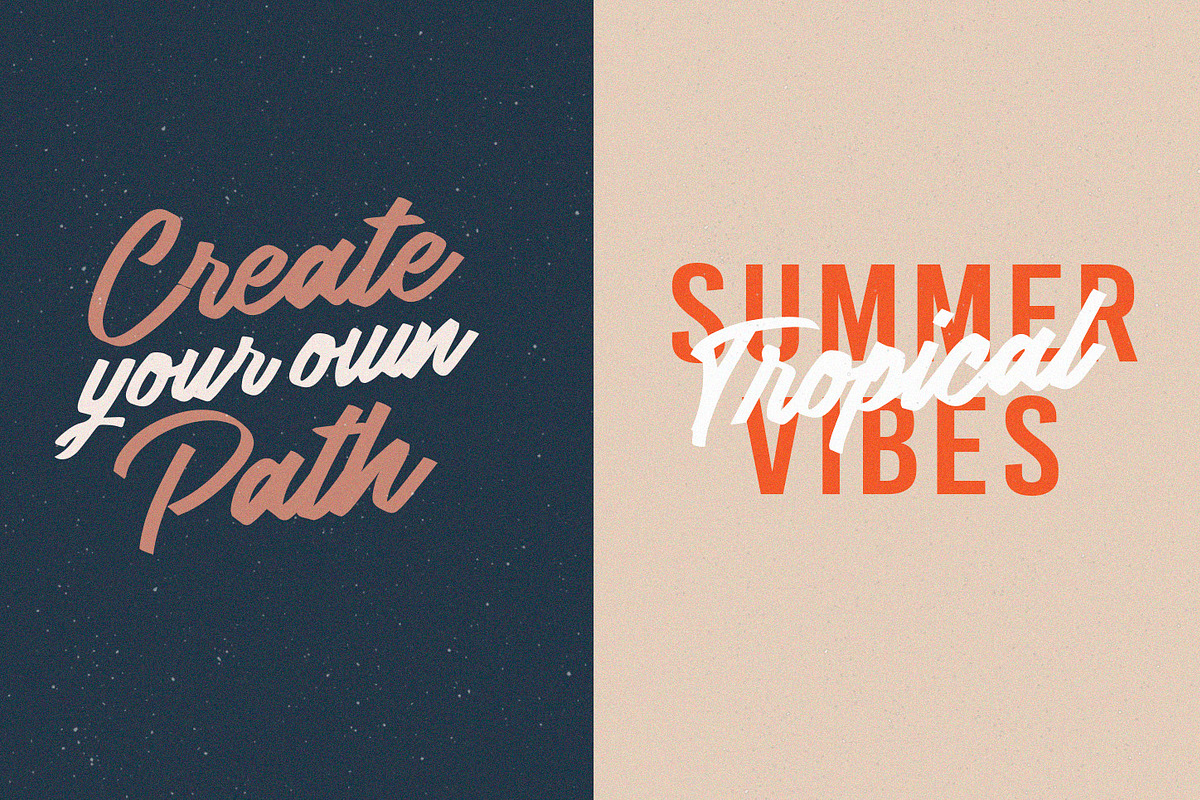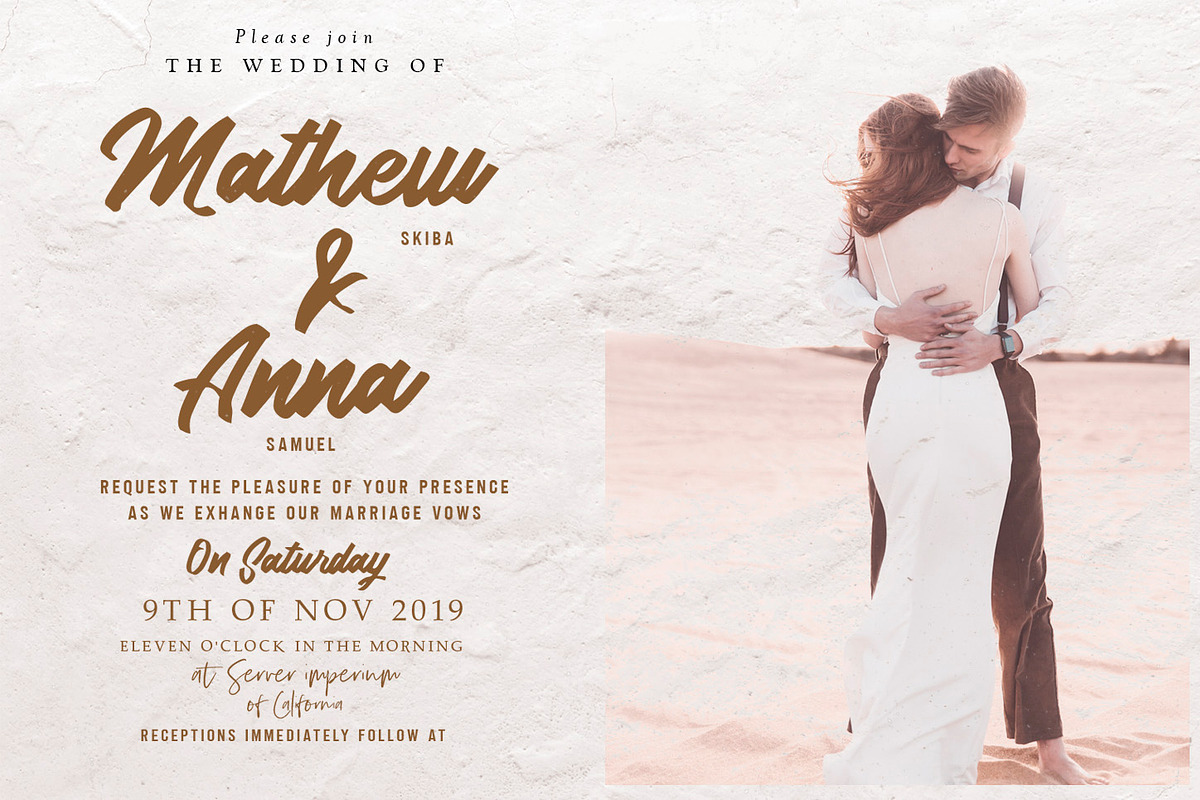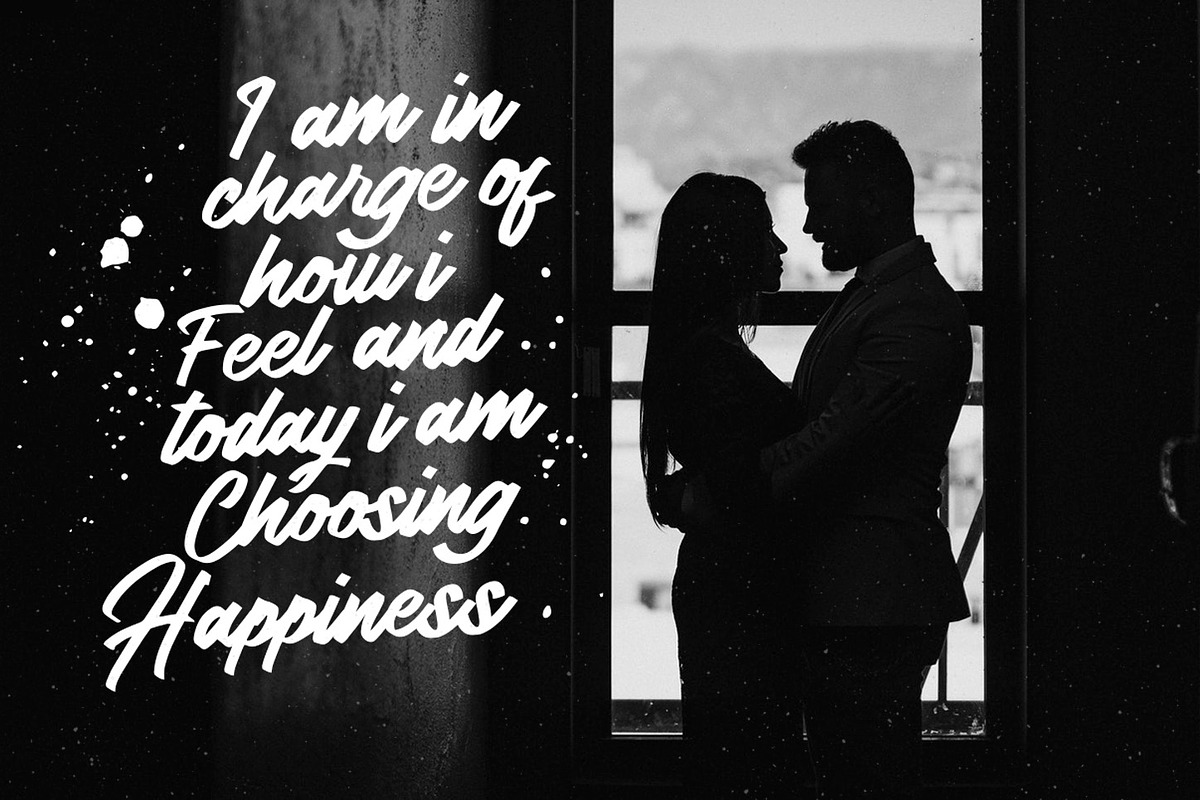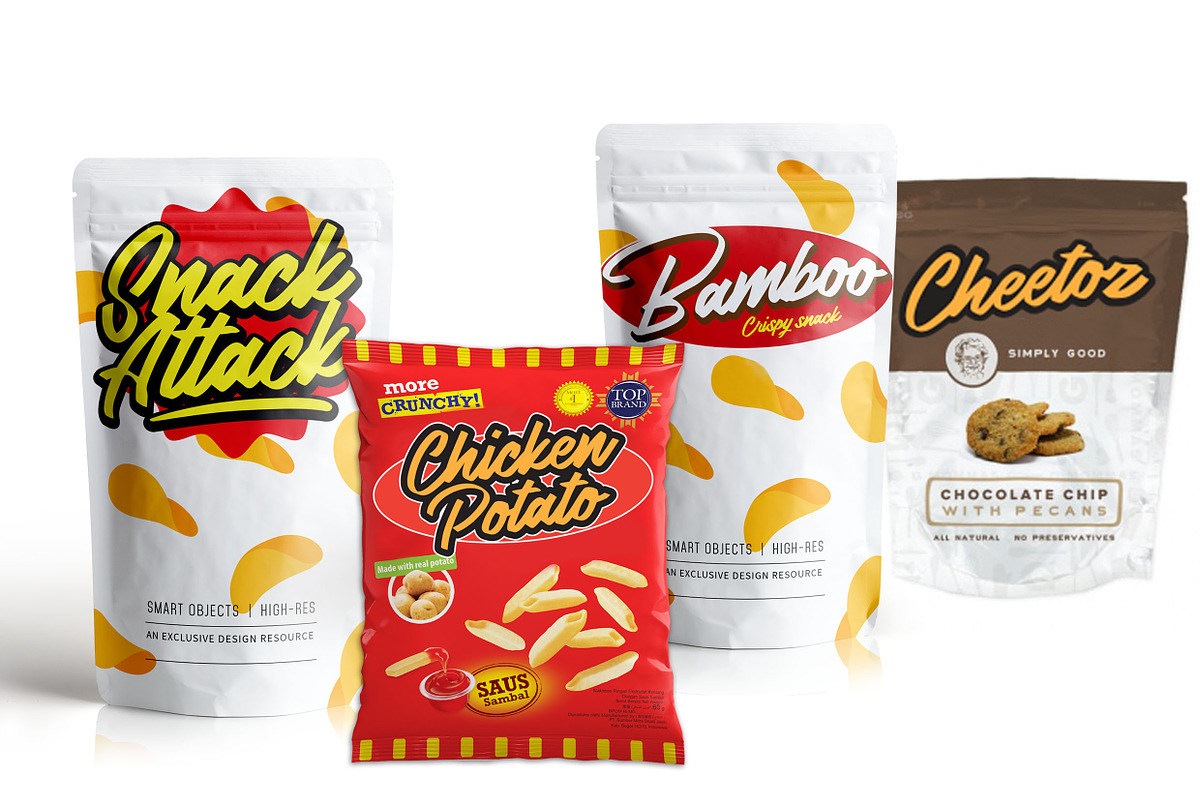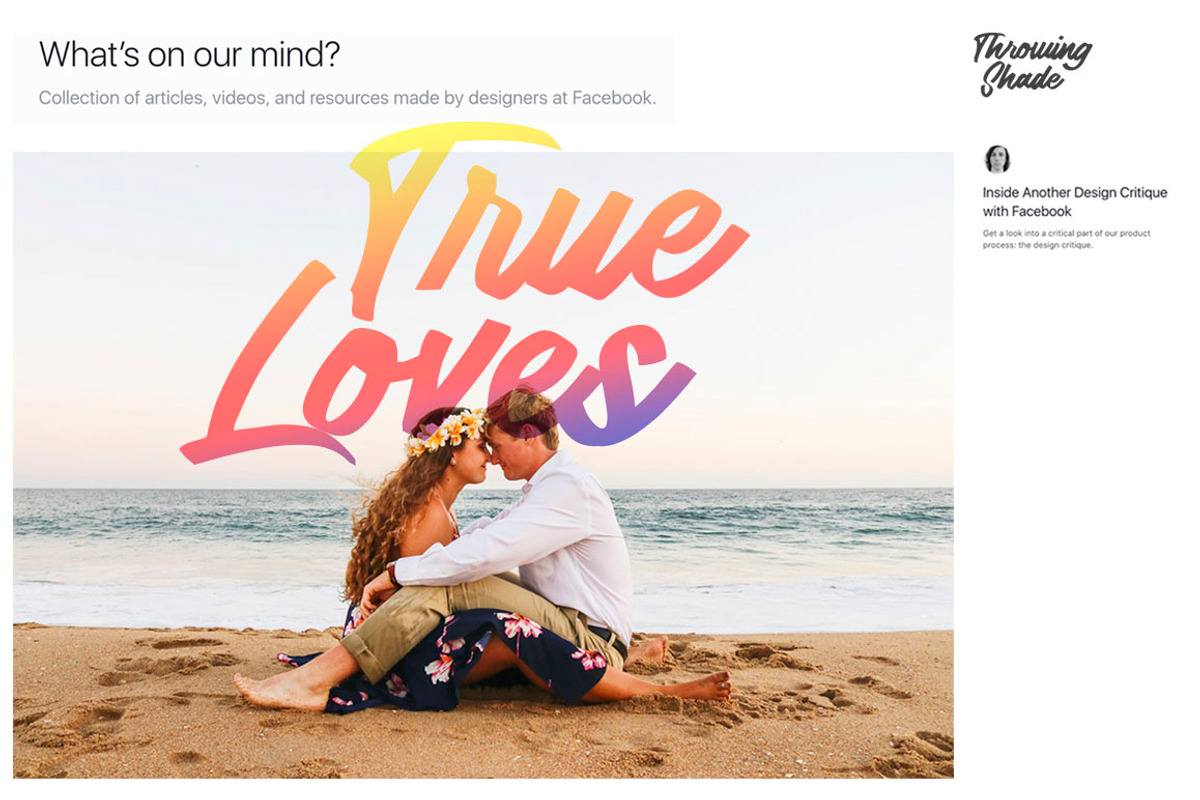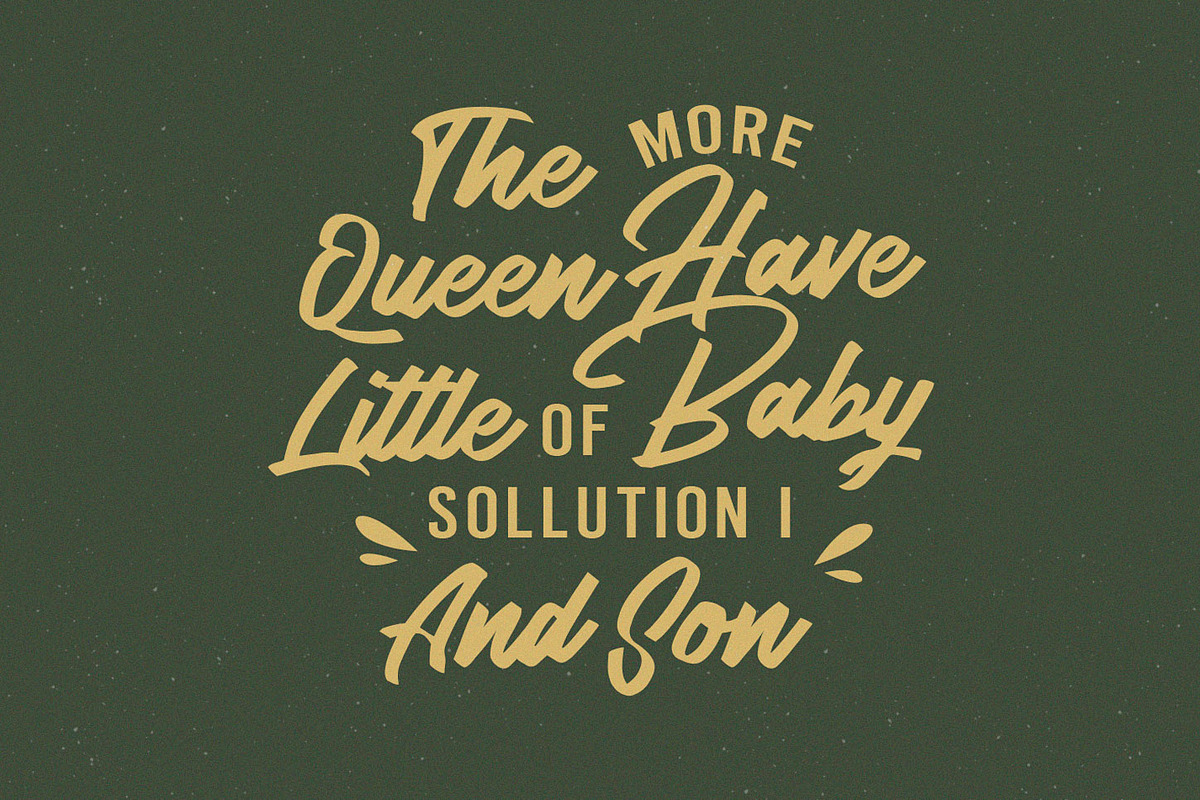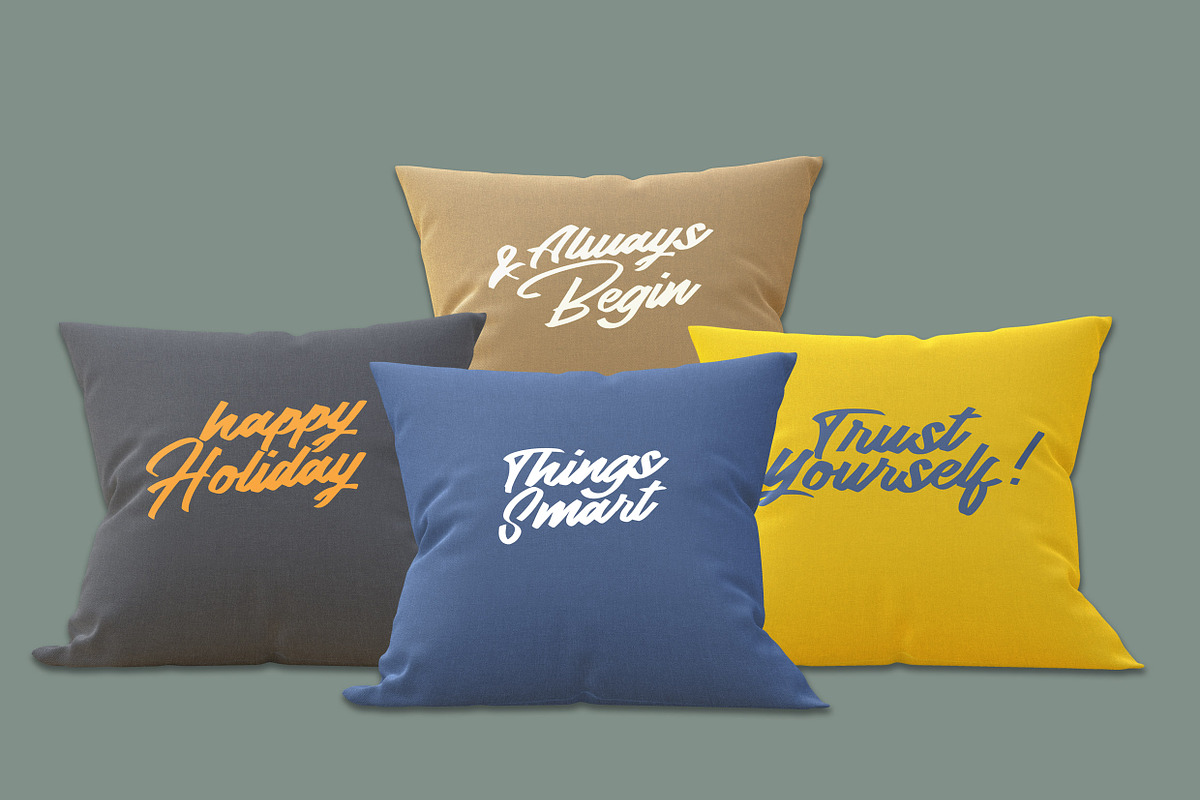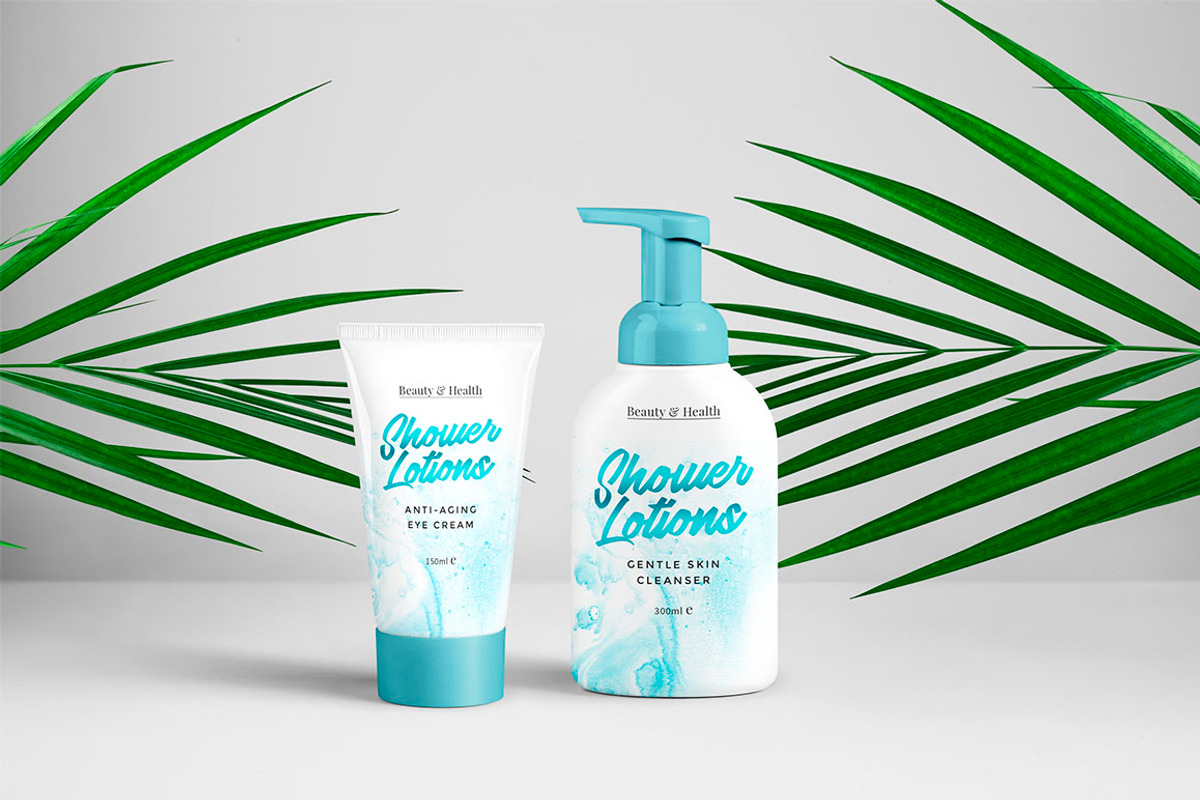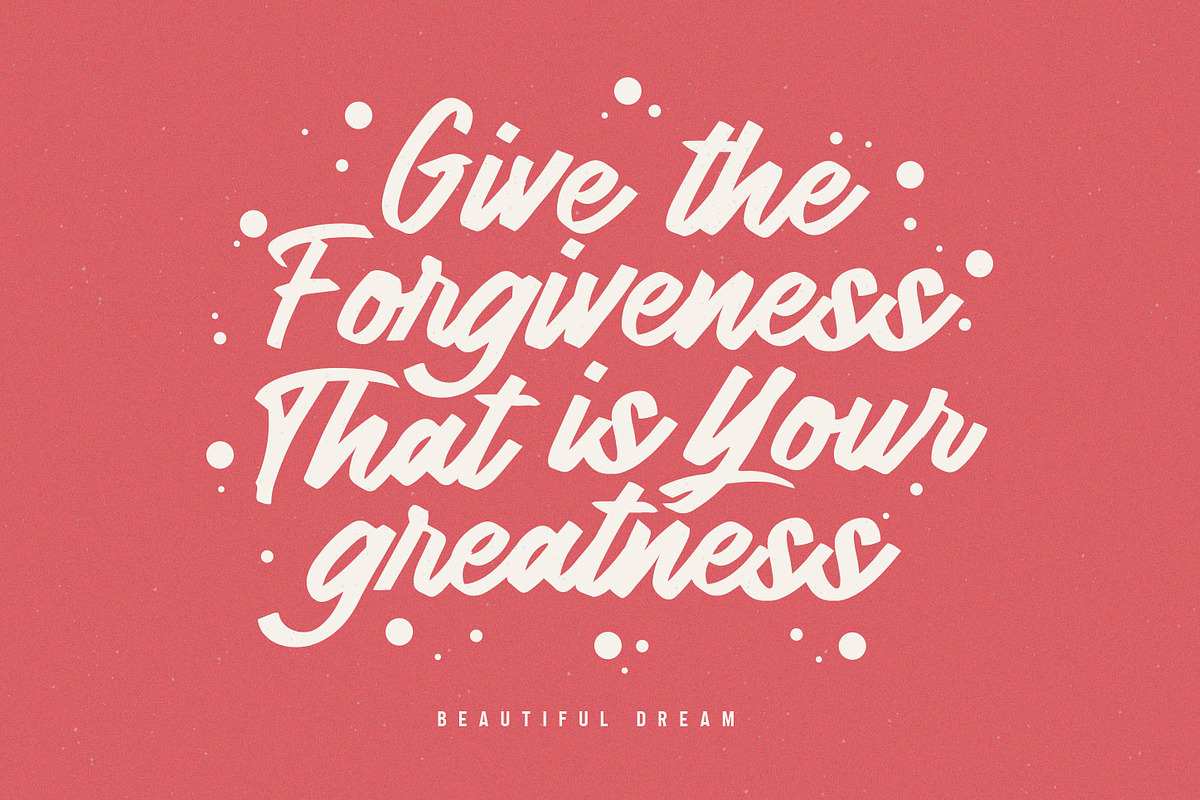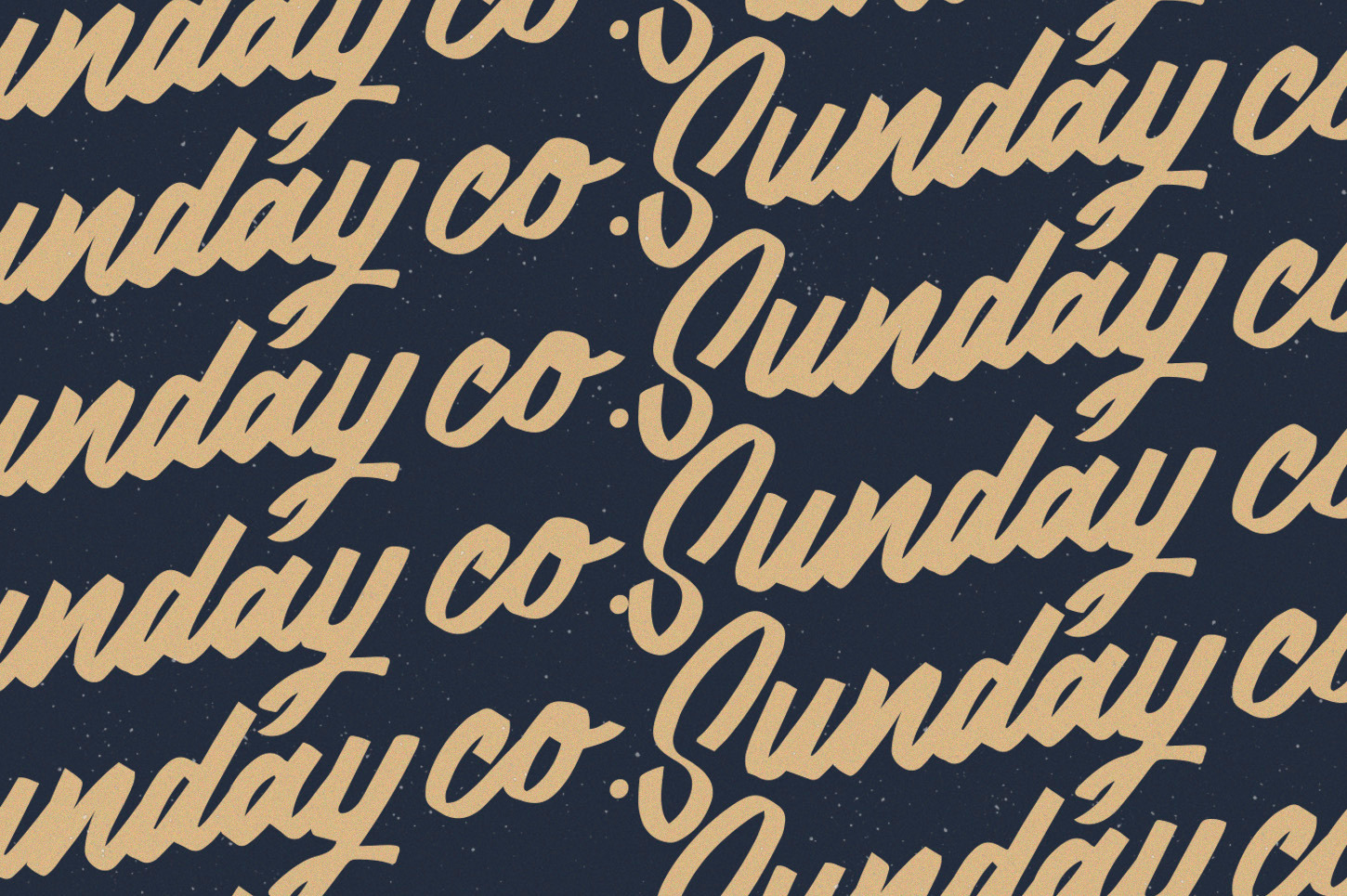
Lydiani Typeface // Font Duo
Lydiani Script is a Modern script font, thick and clean. There are variations on each character. Include alternative Opentype styles. You can create so many different typographic layouts easily and quickly. Make sure you use the OpenType program and just open the Glyph Palette to access all the glyphs.
Lydiani Typeface is a beautiful font duo that combines two fonts namely Script and sans serif combined into one beautiful package. You will see more of these combinations in the badge logo.
This font is suitable for logos, t-shirts, signage, headlines, branding, packaging, website headers, fashion designs, posters, label designs, nameplates, greeting cards, letterheads, and will add a touch of beautiful handmade love to your project.